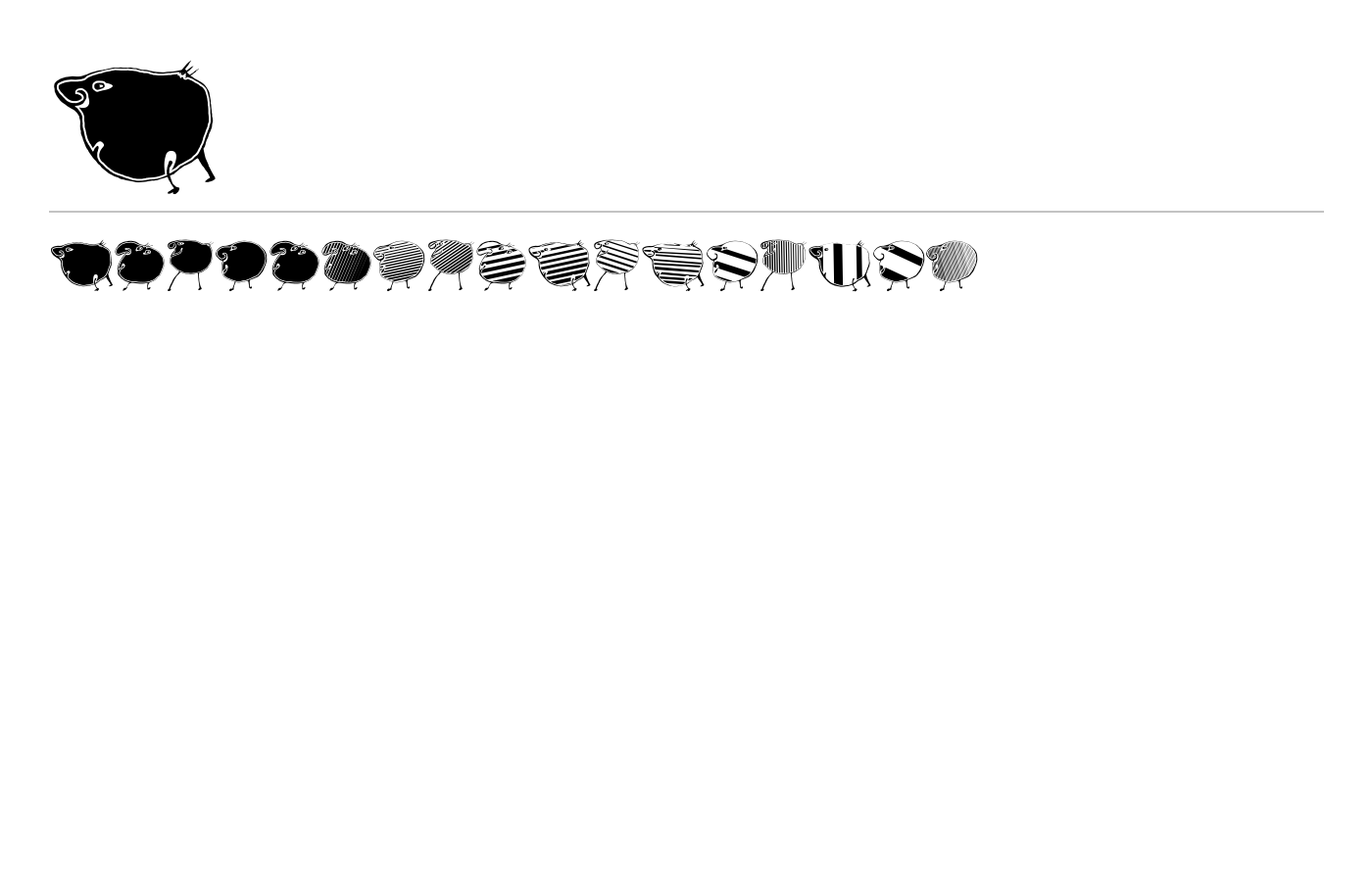
Animasyon Font is a playful and whimsical display typeface featuring rounded, cartoonish characters that resemble lively little creatures. Its uneven shapes and quirky details make it perfect for fun, informal uses like children's books, animated projects, or creative branding that seeks a joyful and unique personality. This font brings a sense of lighthearted charm and animation to any design.
Animasyon Font
About Animasyon Font